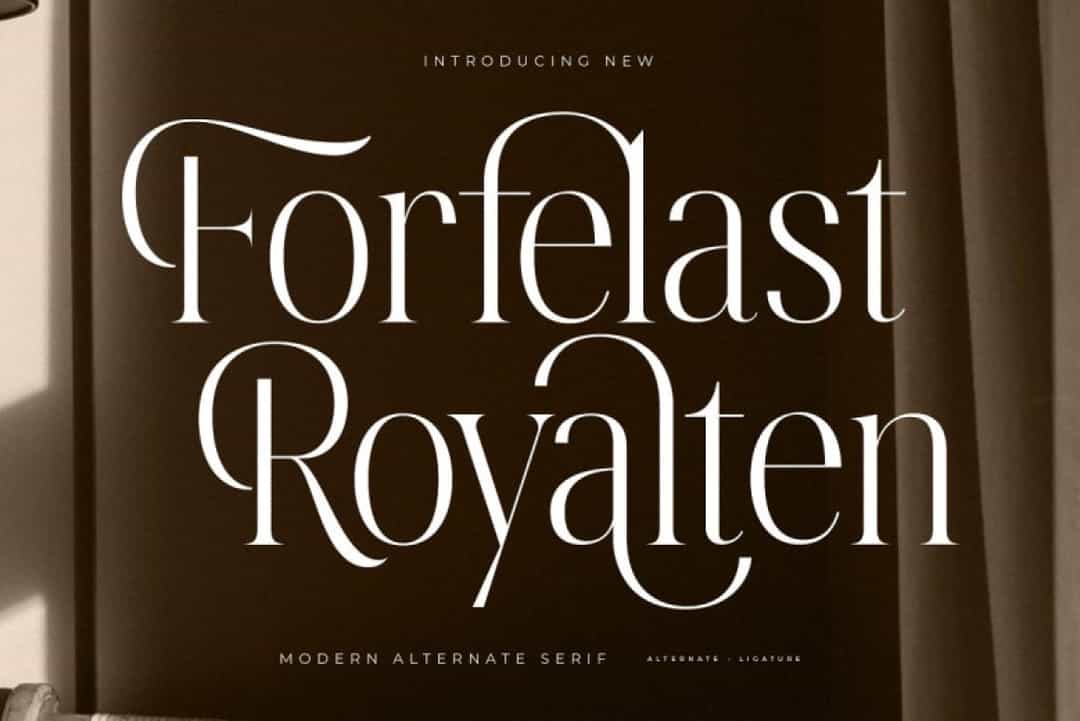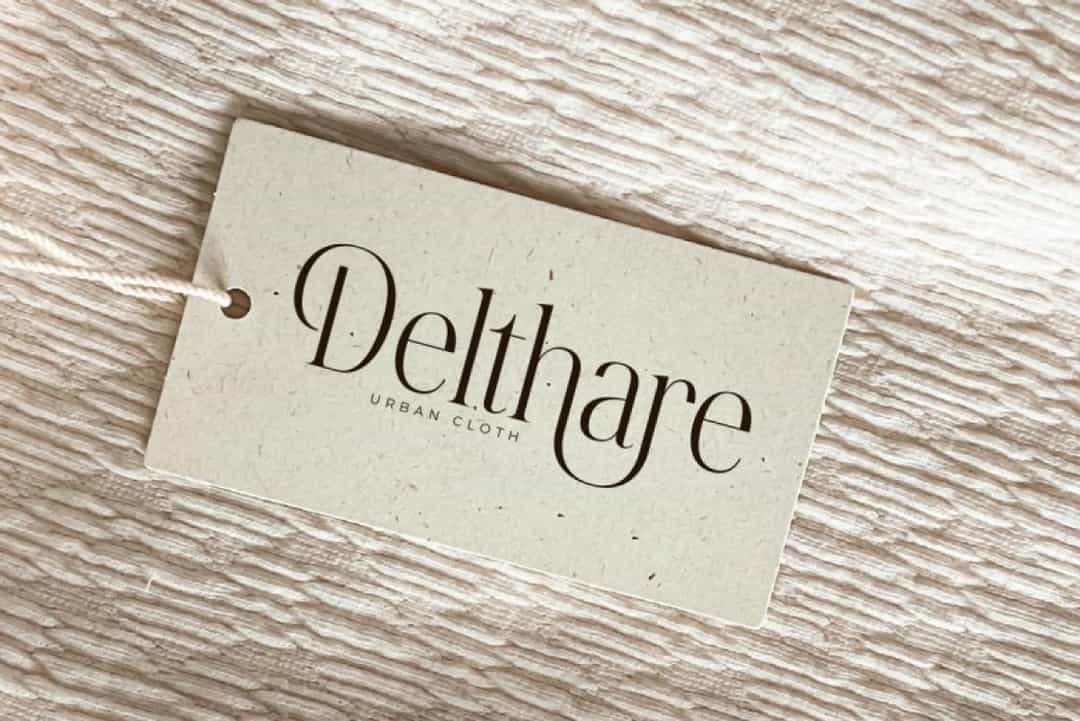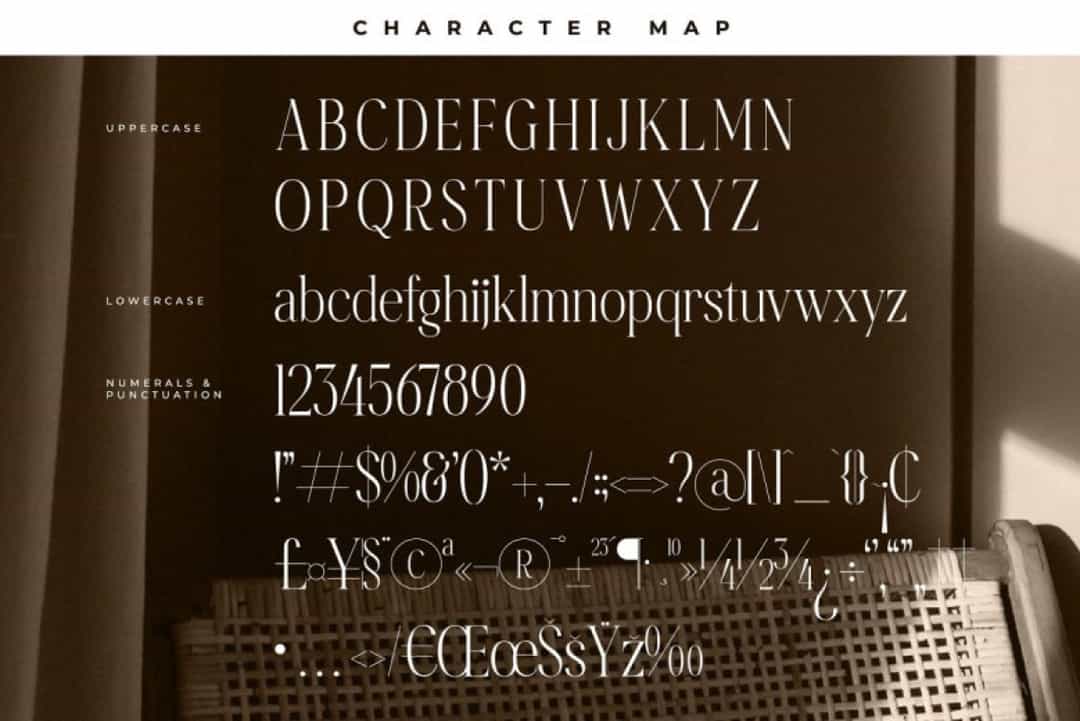
Forfelast Royalten Modern Alternative serif Font is suitable for use in logo design, brand identity creation, packaging design of products such as cups or mugs posters quotes shopping bags T-shirt name cards book covers greeting cards invitation cards watermarks photographs watermarks special events as well as any luxurious and exquisite projects requiring an elegant serif style font.